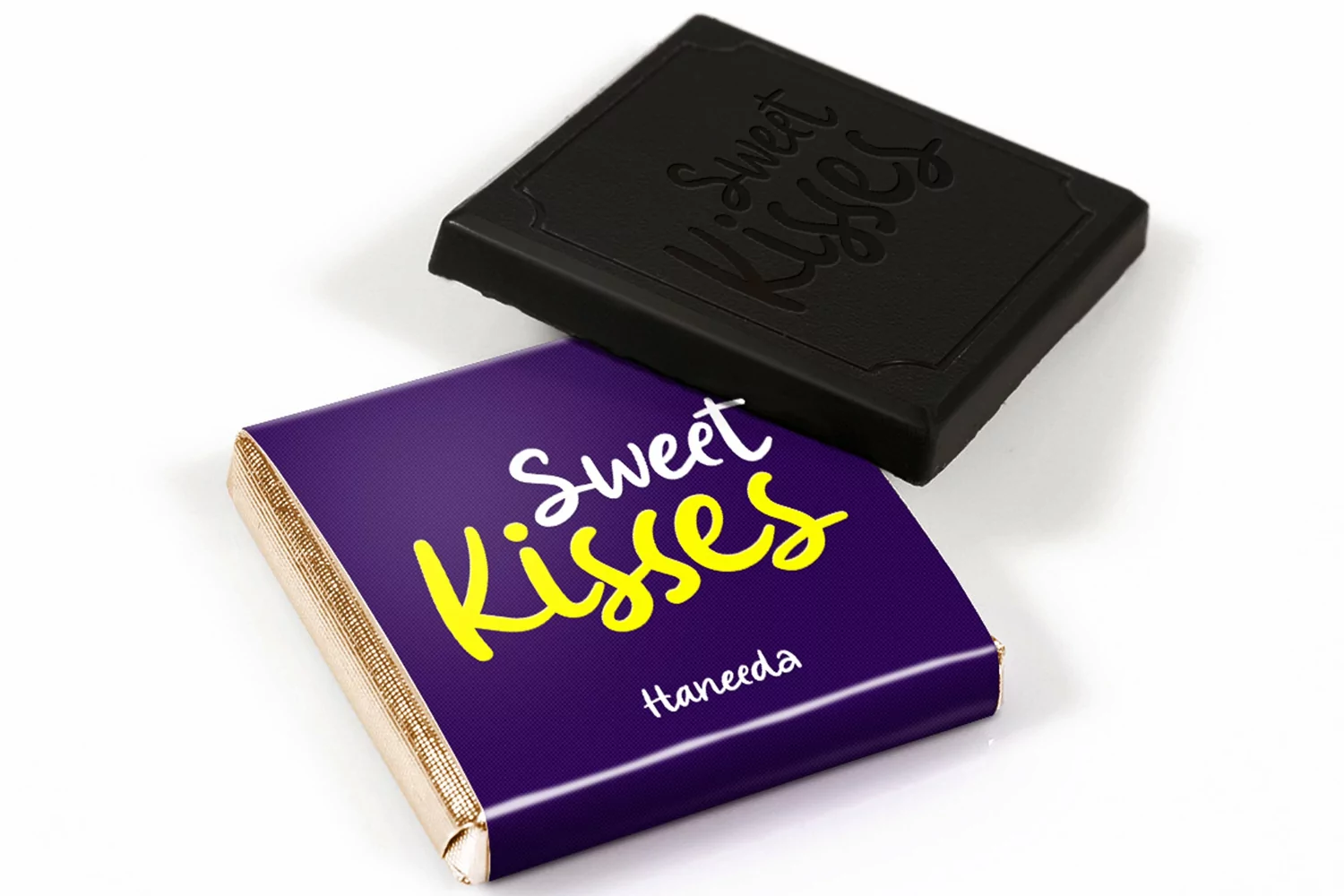
Fangirly - Handrawn Script Font that contain lowercase, uppercase, symbol, and also support multi language. There’s a lot ligatures in this font. This Font also comes with ligatures, alternates and many more. this font suitable for fashion, branding, catalog and other design what you want.